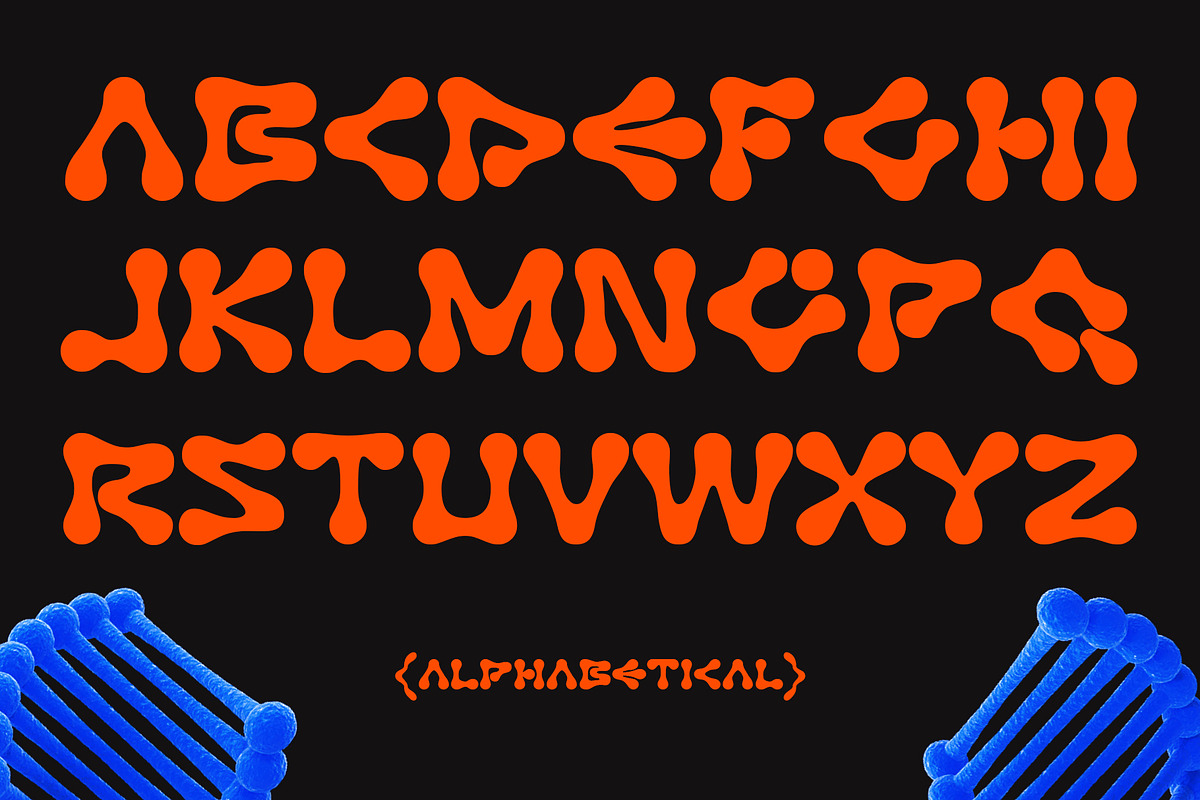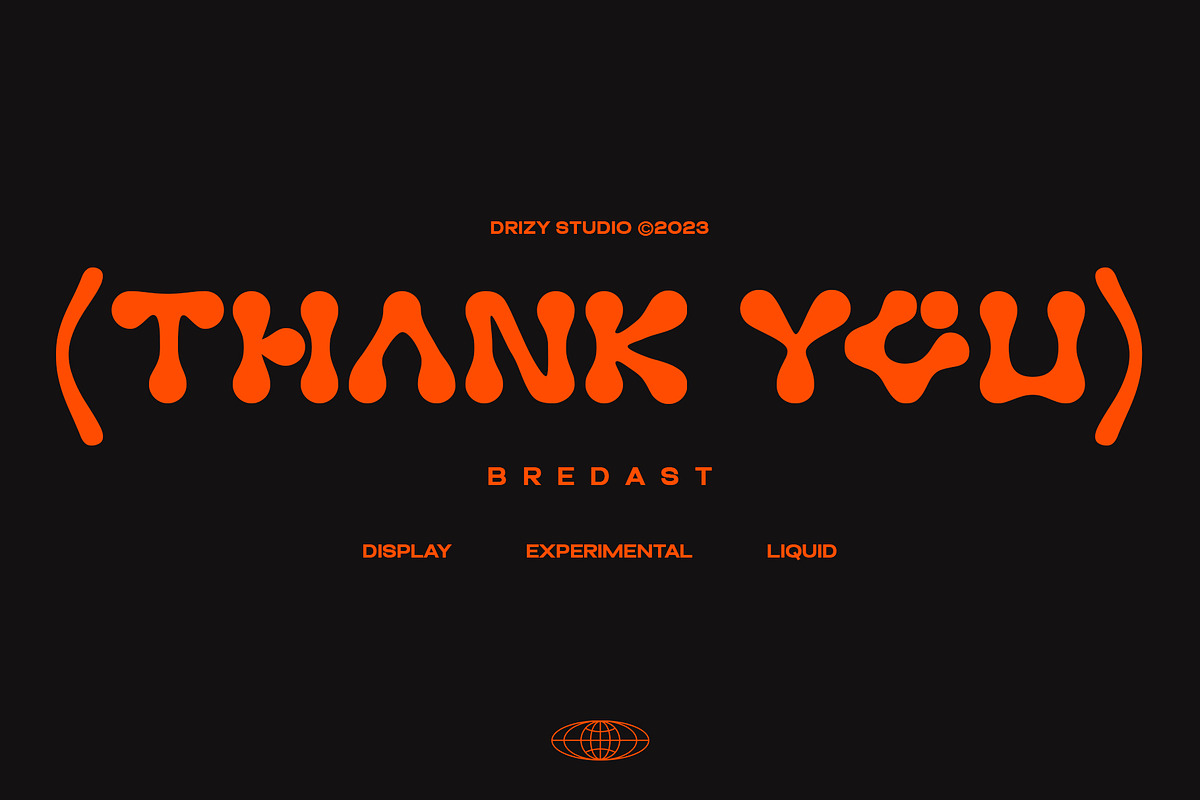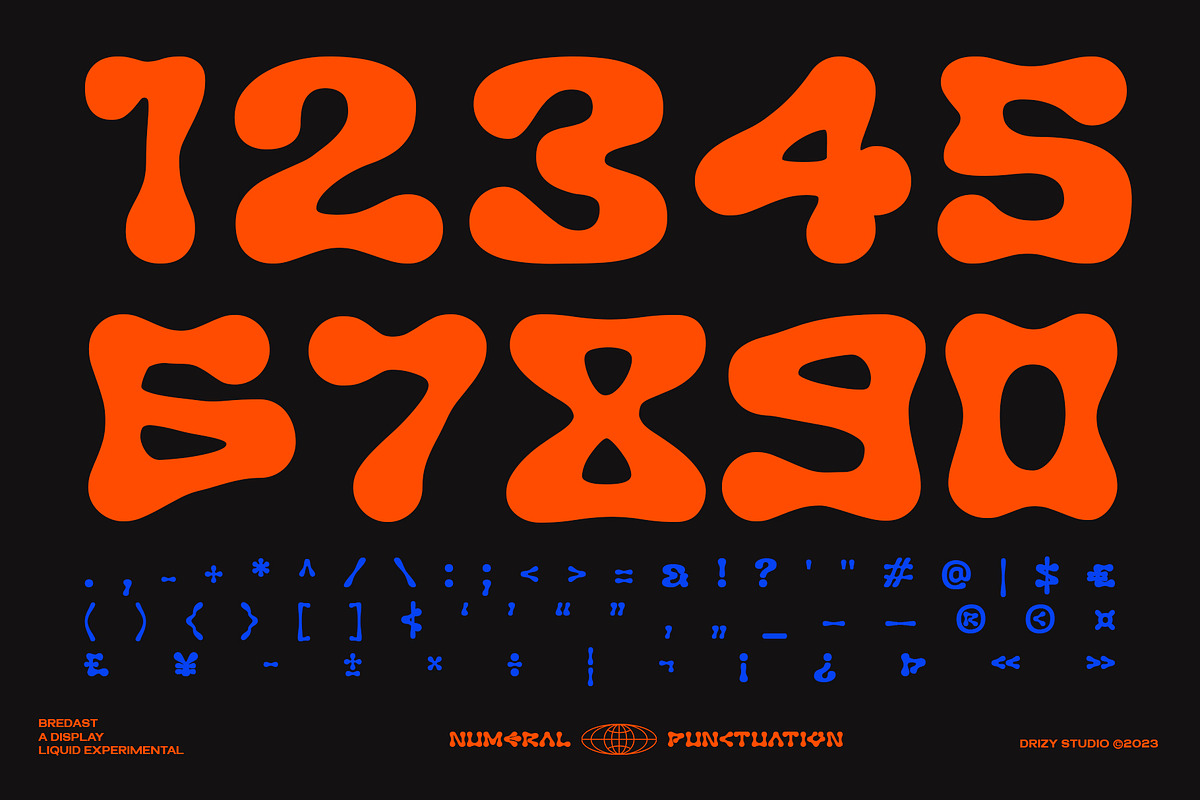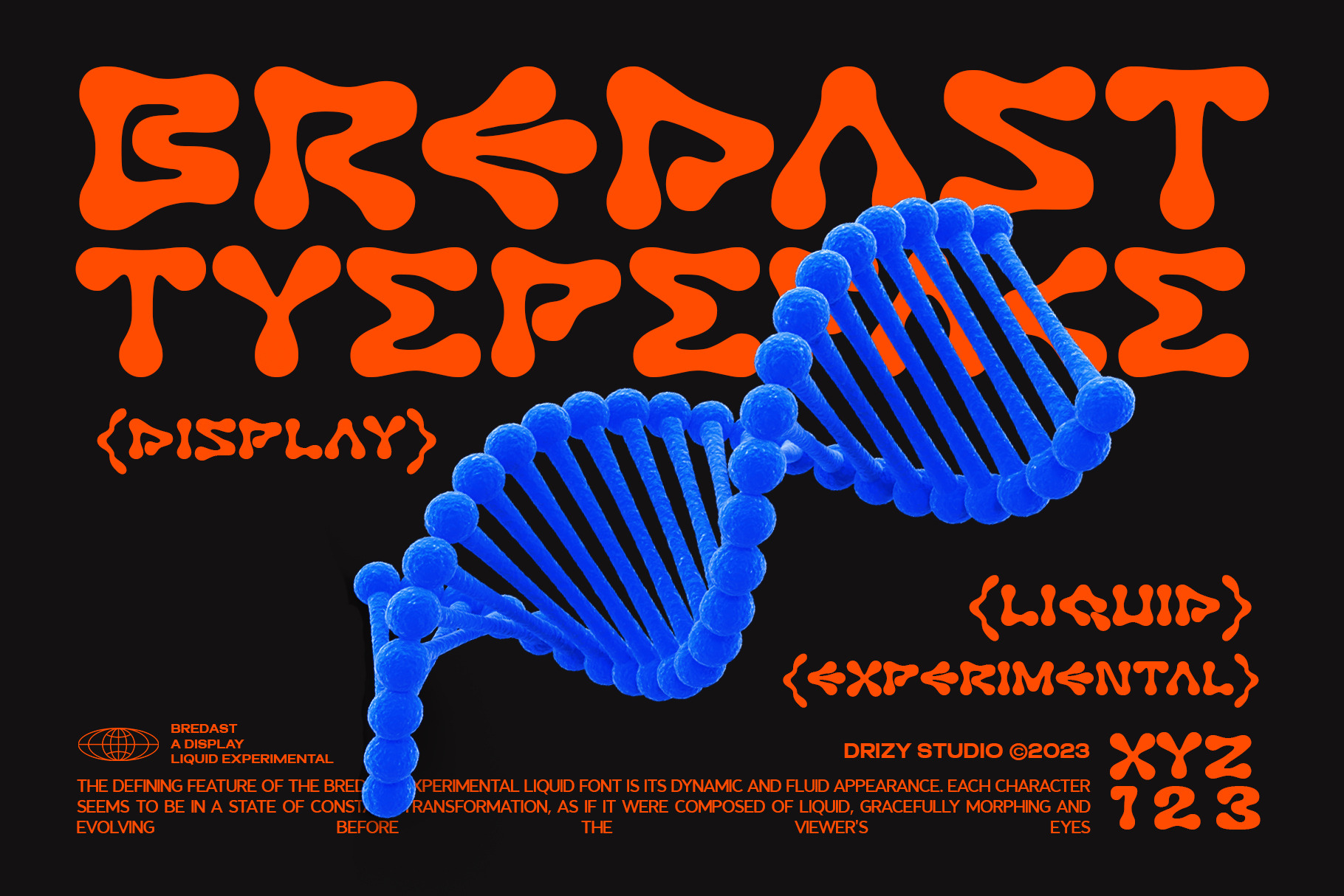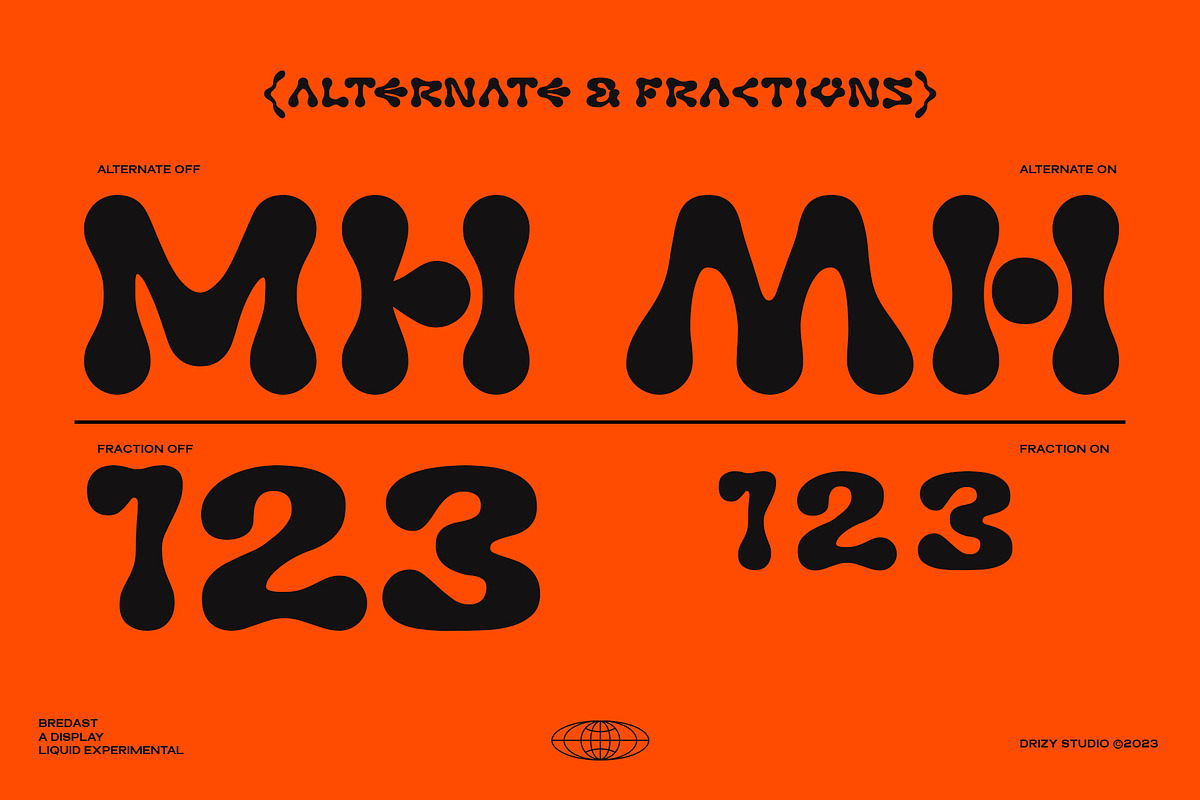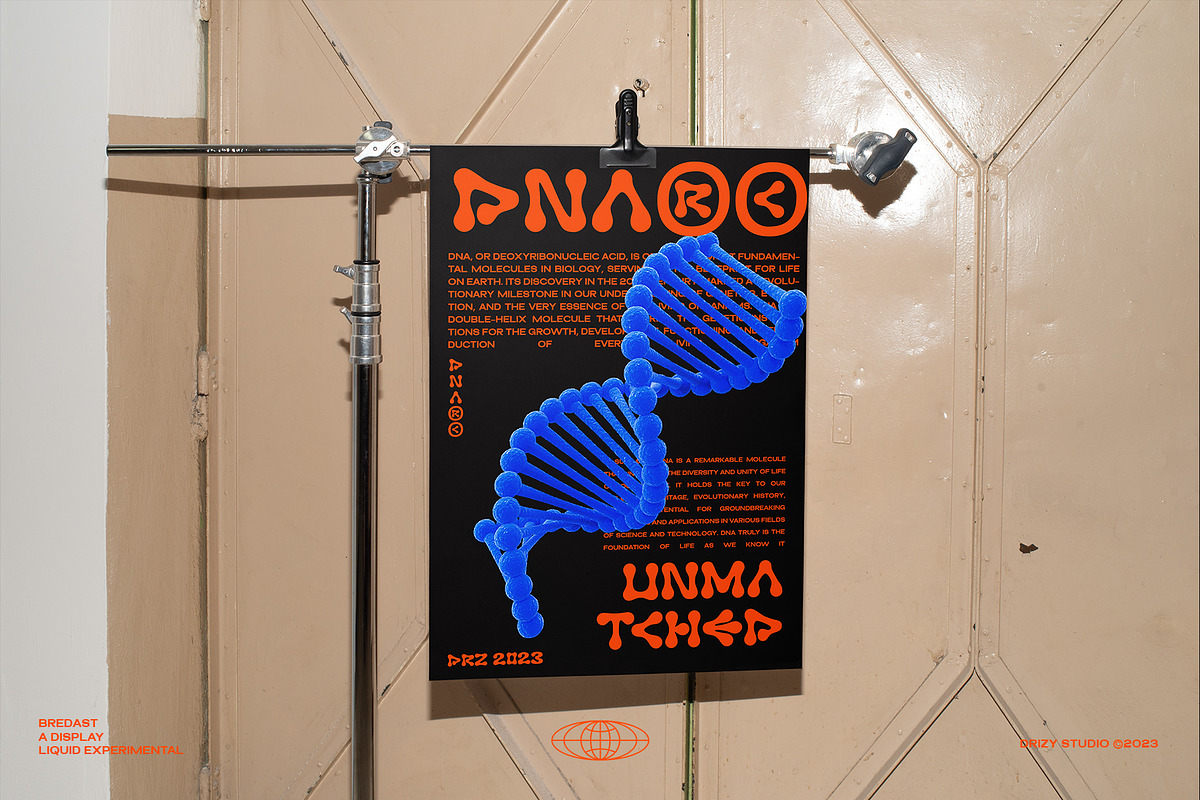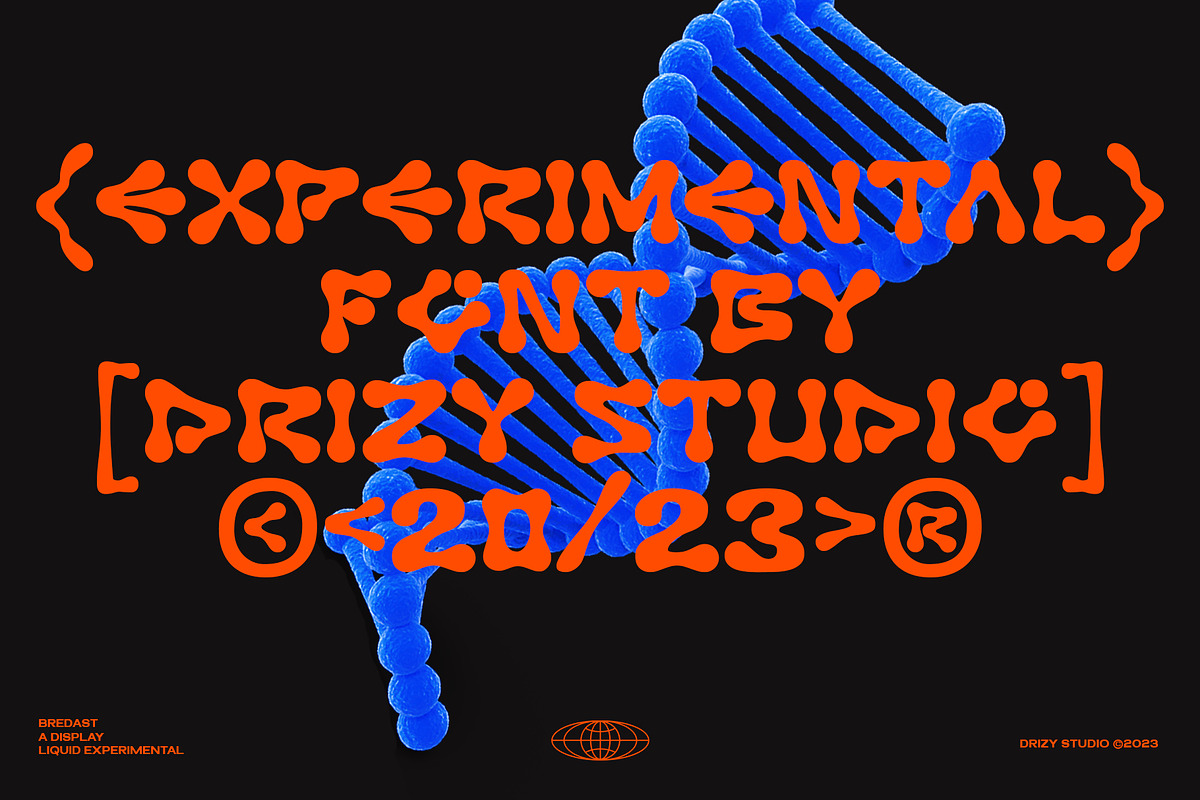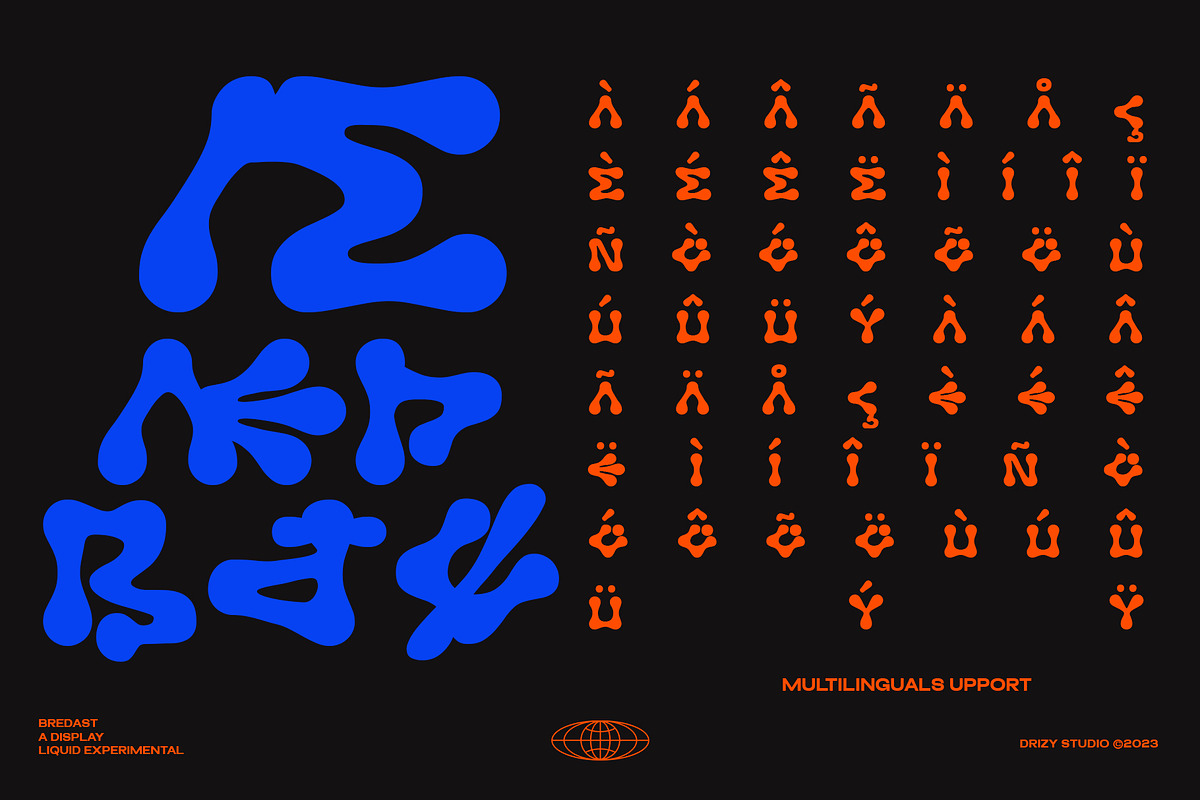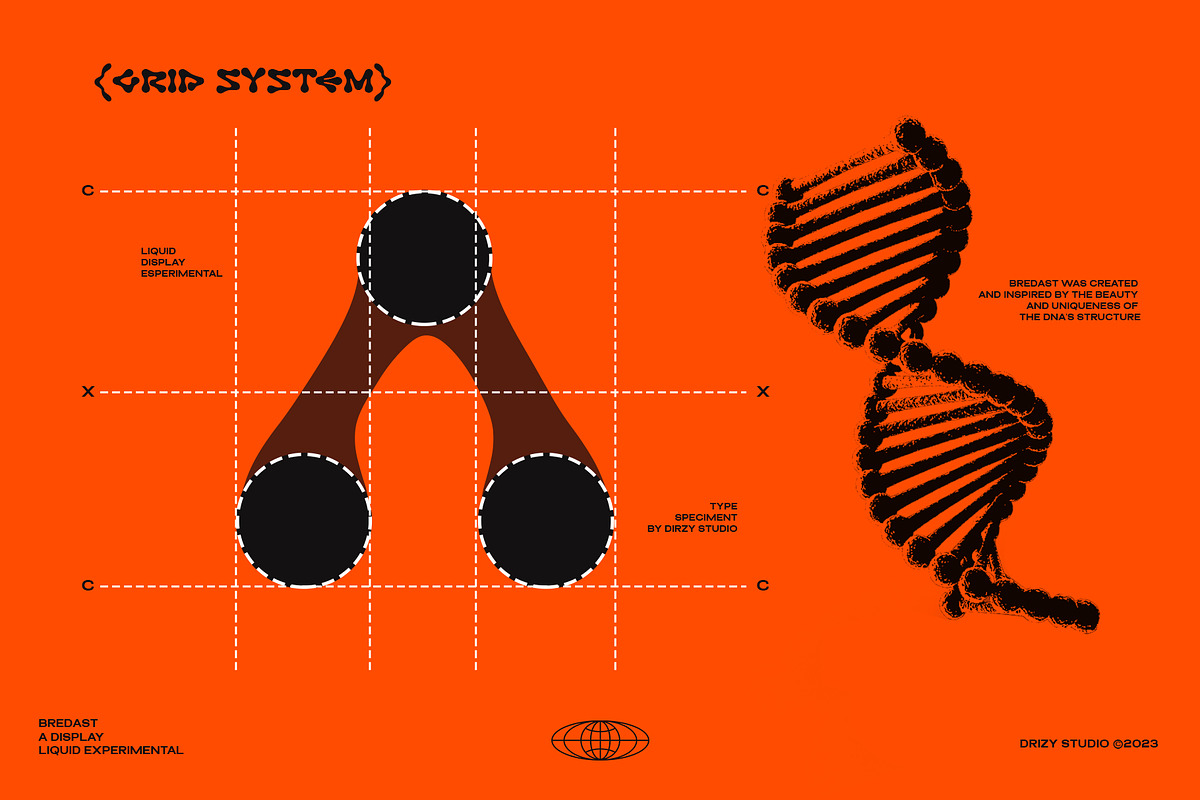
Bredast - Experimental Liquid Font
Step into the future with Bredast, an experimental and extraordinary liquid bio tech font that will redefine the boundaries of creativity. Bredast font is a fusion of science, technology, and nature, meticulously crafted to evoke a sense of fluidity and organic growth. Its distinctive, liquid-like characters seem to morph and flow, embodying the essence of biotechnology and the potential of the natural world.
Bredast features: Character Set Punctuation & Numbers Multilingual Support Alternates
Elevate and explore the design possibilities with this experimental font!